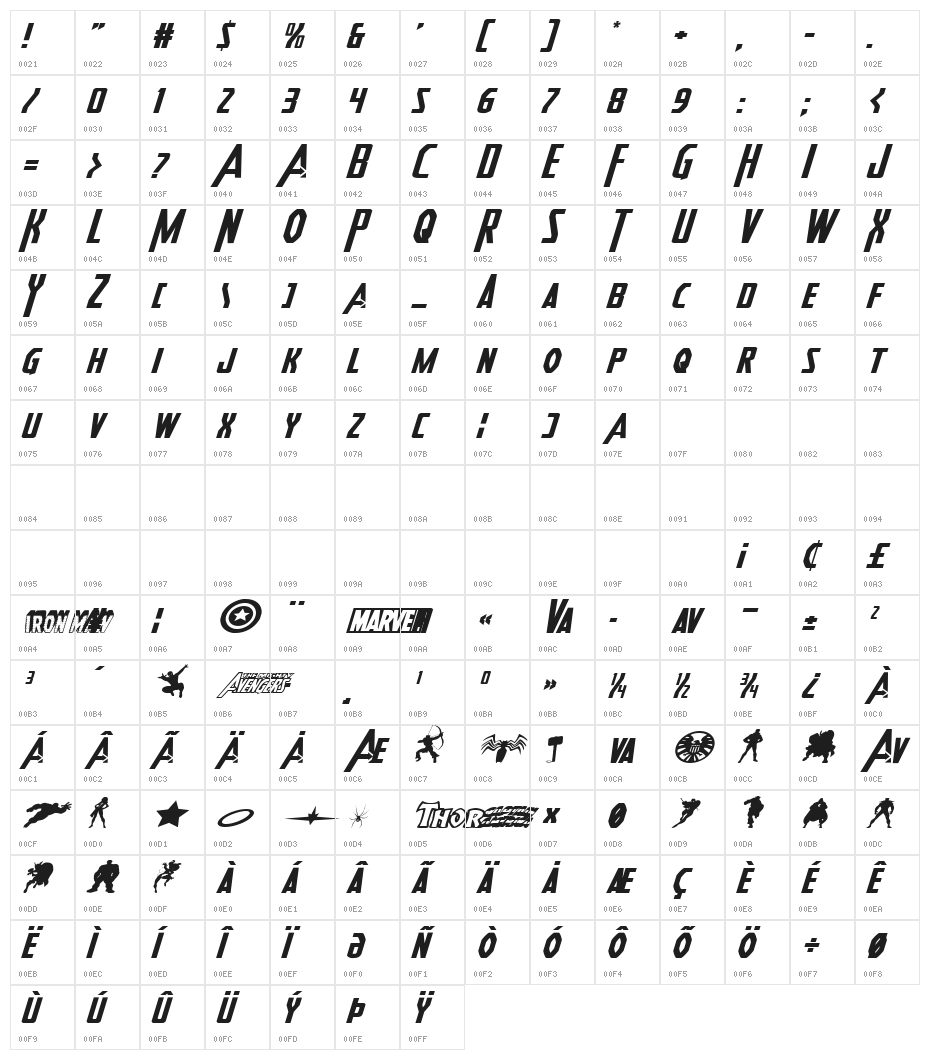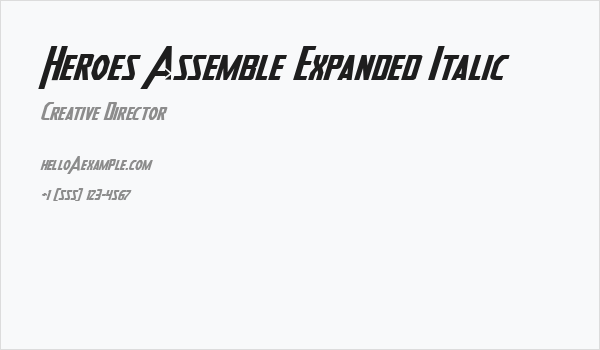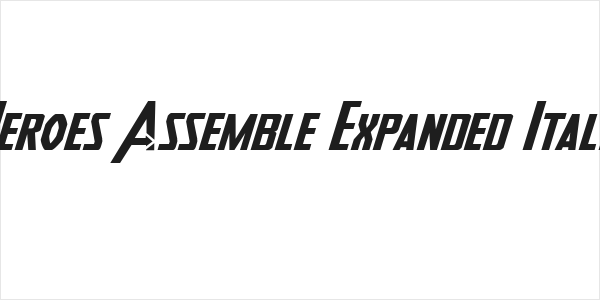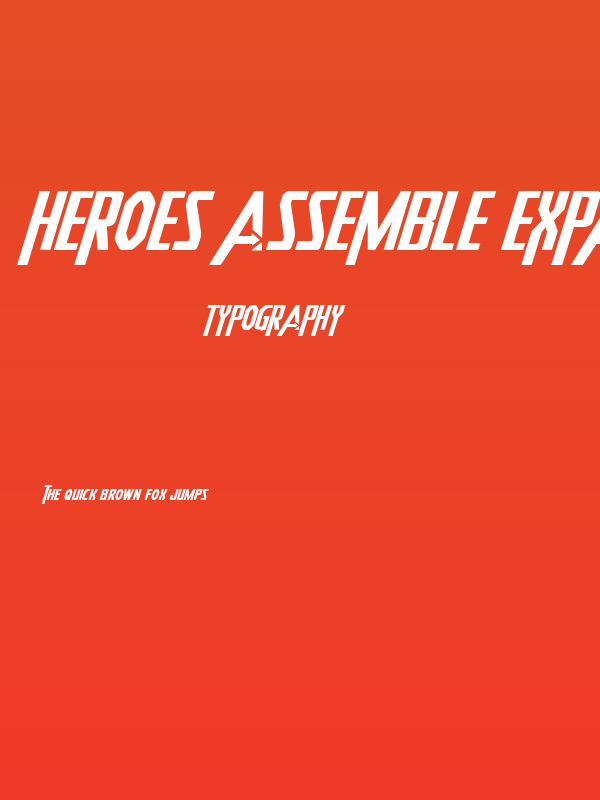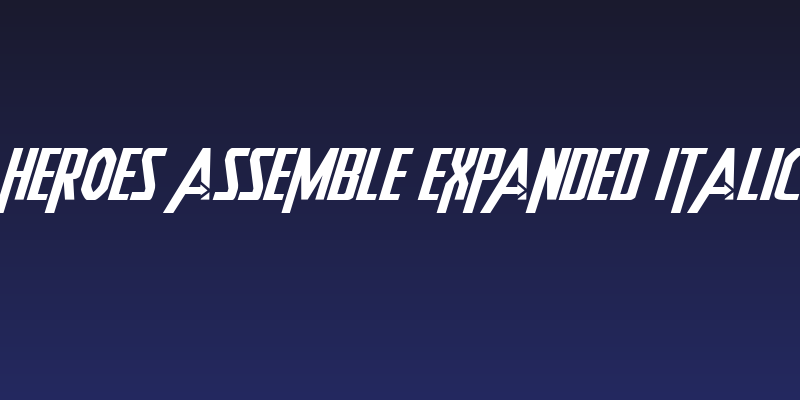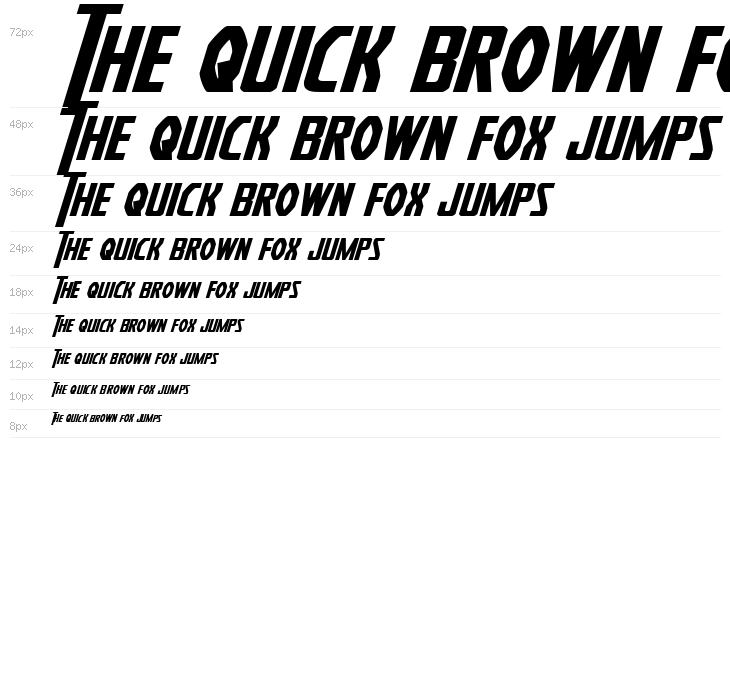
Heroes Assemble Expanded Italic Font
Heroes Assemble Expanded Italic Description
This font features a bold and dynamic style with an italicized slant, giving it a sense of motion and energy. The characters are expanded, providing a wide stance that enhances readability while maintaining a strong visual impact. The angular and sharp edges of the letters contribute to a modern and futuristic appearance. The uppercase and lowercase letters are consistent in style, with numerals and special characters complementing the overall design. This font is ideal for projects that require a bold statement and a touch of modernity.
| Proposed Projects | Ideal for superhero-themed designs, movie posters, video game titles, and branding that requires a strong and energetic presence. |